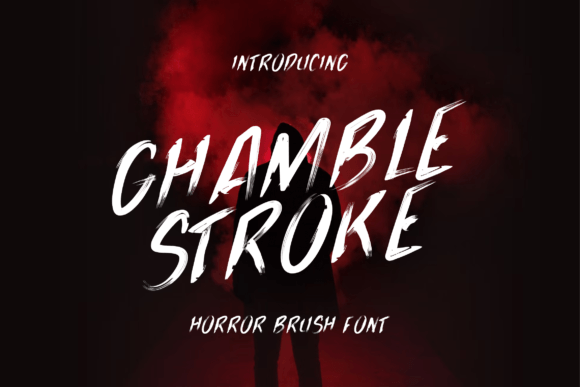
Journey into the realm of digital enchantment with Ghamble Stroke Font, a spellbinding creation by kalingga.albert, designed to cast a hypnotic allure over your tech website. This haunting script font, imbued with the mystical energy of a midnight séance, will transport your visitors to a realm of captivating experiences, leaving them spellbound and eager to explore the depths of your digital domain.
Ghamble Stroke Font's meticulously crafted letters dance across the screen like whispers from the ethereal realm, each stroke infused with a chilling allure that speaks to the soul. Its minimal brushstroke effect adds a touch of ghostly charm, evoking images of ancient runes etched into stone tablets under the glow of a crescent moon.
Unleash your creativity and weave captivating tales with Ghamble Stroke Font. Cast a spell on your audience with hauntingly beautiful invitations, postcards, and posters that whisper of dark secrets and otherworldly encounters. Let your headings dance with a macabre grace, drawing visitors deeper into the labyrinthine corridors of your website, where every click reveals a new layer of enchanting content.
Step into the shadows with Ghamble Stroke Font and embrace the darkness that fuels your imagination. With this font as your guide, your tech website will transcend the ordinary and become a portal to a realm where dreams and nightmares collide. Dare to unlock the secrets of the unknown and leave an indelible mark on the digital landscape with Ghamble Stroke Font.